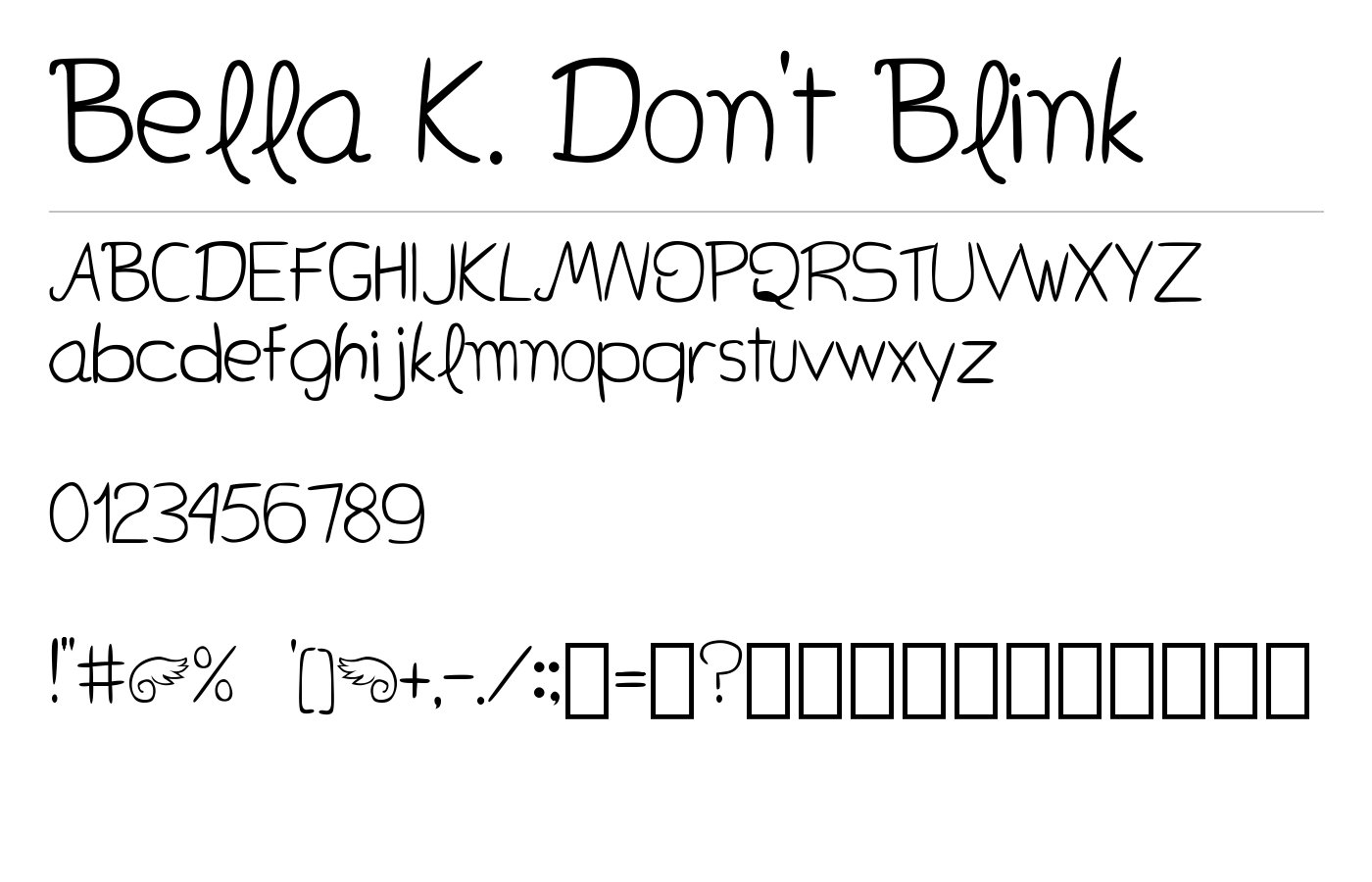
Bella K. Don't Blink is a playful and whimsical sans serif font with a hand-drawn, casual feel. Its tall, narrow letterforms feature uneven strokes and quirky details, making it perfect for designs that want to convey friendliness and creativity. This font works well for children’s books, informal branding, and lively headlines where a lighthearted, approachable tone is desired.
Bella K. Don't Blink Font
About Bella K. Don't Blink Font